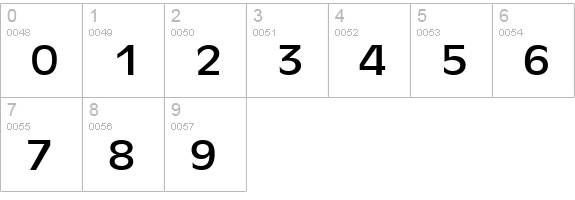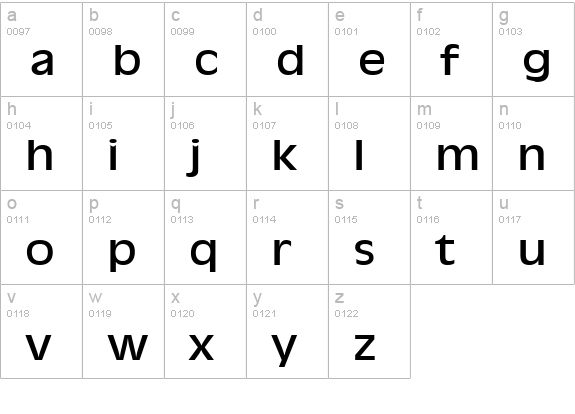
Antiqua 101 Wide Normal Font Details
Antiqua 101 Wide Normal is the standard, neutral, extended-width variant in the Antiqua typeface family \xE2\x80\x94 well suited to general body text, paragraphs, and standard typographic work.
Antiqua 101 Wide Normal font is a classic and elegant typeface that exudes sophistication and timeless charm. With its wide characters and clean lines, this font is perfect for adding a touch of refinement to any design project. Whether you're creating invitations, posters, or branding materials, Antiqua 101 Wide Normal font will make your text stand out with its distinctive style. The best part? Antiqua 101 Wide Normal font is available for free download at FontsMarket.com. Simply visit the website to access this beautiful font and enhance your creations with its graceful aesthetic. Embrace the beauty of Antiqua 101 Wide Normal font and elevate your designs to new heights of elegance and professionalism.